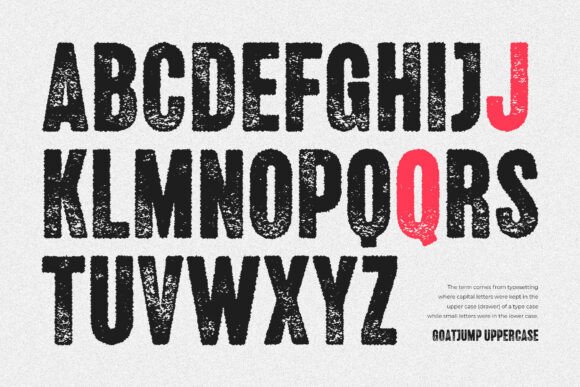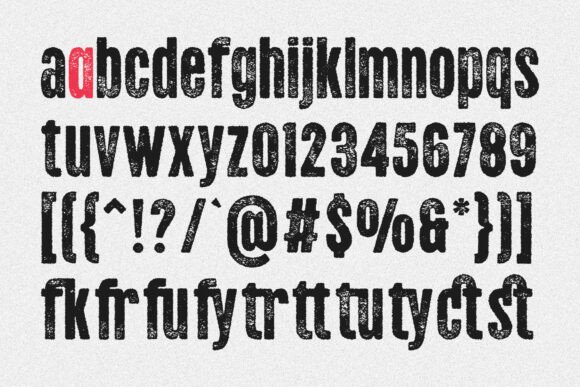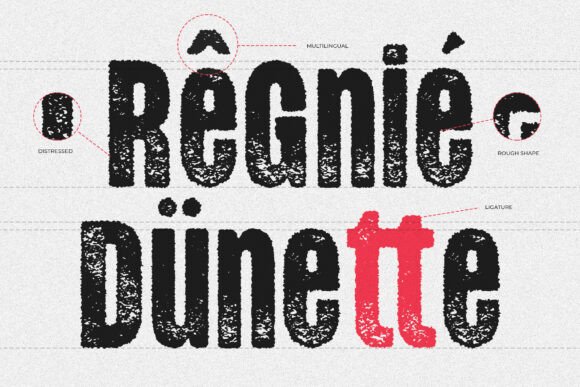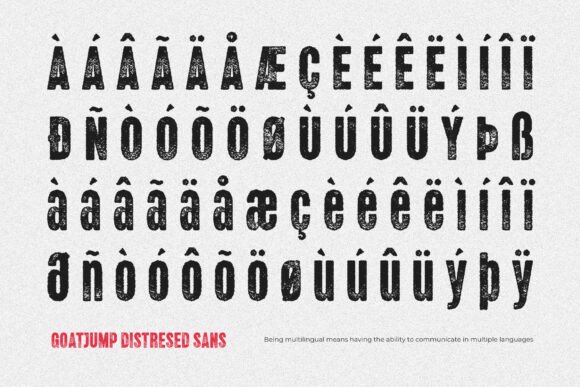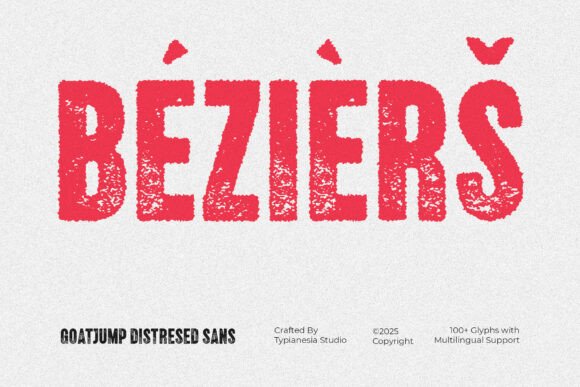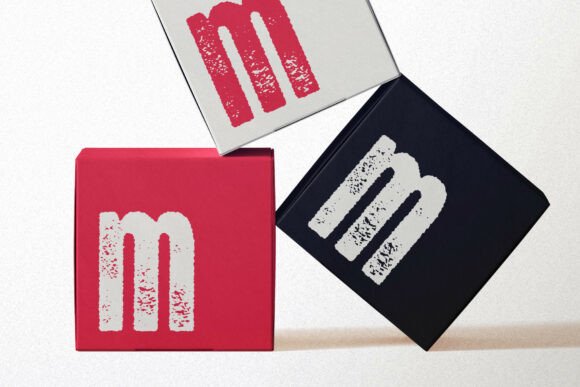
Introduction to Goatjump Font
🐐 Goatjump: Bold Distressed Display Font Goatjump is a bold and commanding distressed Sans-Serif Display typeface that perfectly captures an authentic vintage aesthetic.
With its deep, textured grunge feel, this font brilliantly simulates a worn rubber stamp or an ink print effect It is the ultimate tool for creating striking logos, authentic labels, distinctive badges for craft beverages, apparel, and artisan goods, impactful posters , and powerful headlines .
Key Features of Goatjump Font